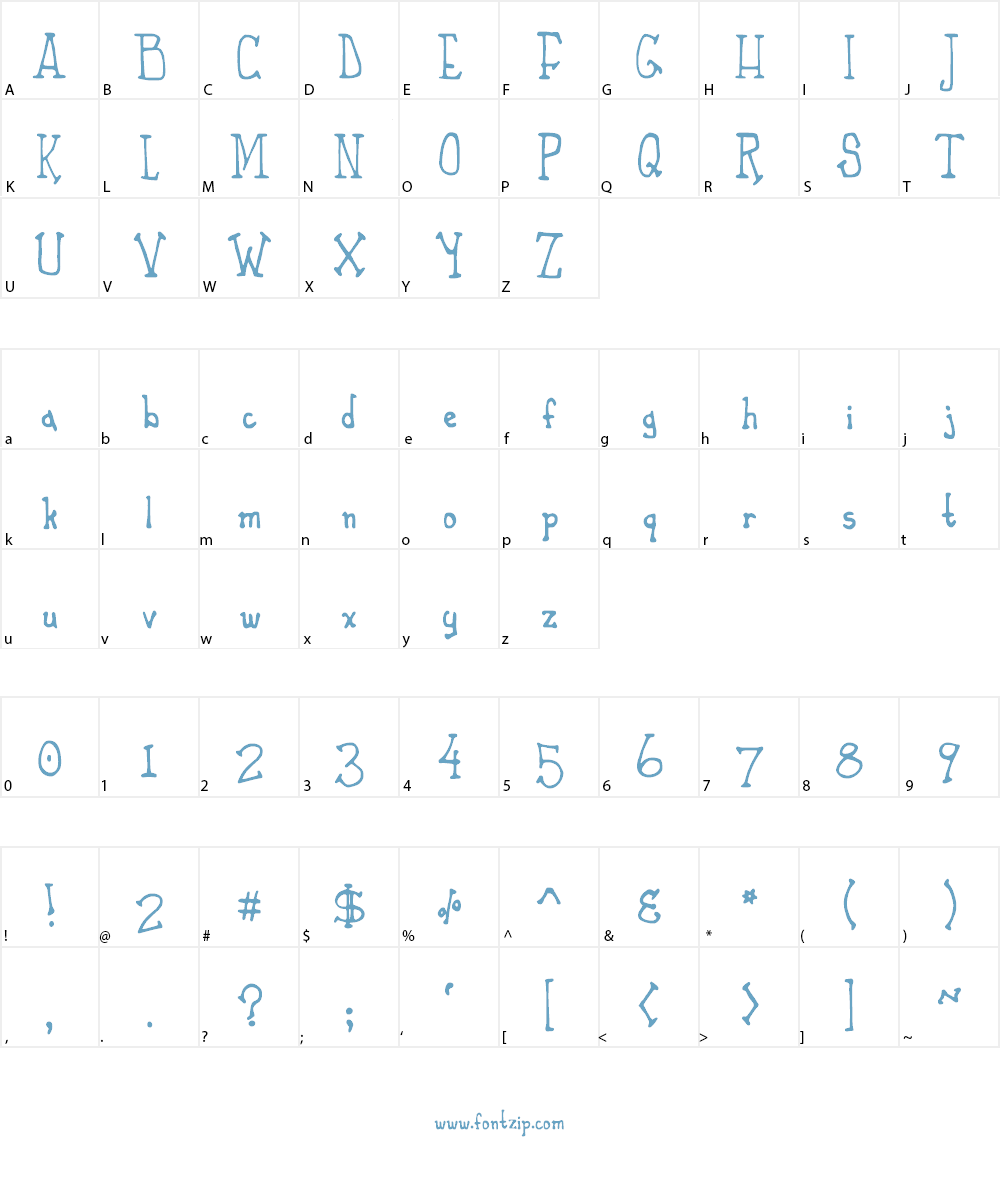
This general style of font - soft, casual, subtly baroque Roman - is becoming one of my favorite styles to doodle. This new member of the family has much taller, narrower capitals than its cousins, Apple Butter and Atlas of the Magi. I enjoyed drawing it so much that I kept fiddling a bit beyond my normal character set, including a couple of fractions, a cent and Pound Sterling, and even a Yen symbol.
I have no idea what particular aesthetic or style this font is supposed to represent, apart from "friendly stuff I like." Here's hoping you enjoy it, too.